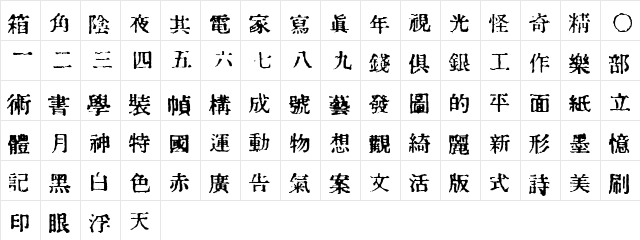
In_kanji Regular
In_kanji takes a measured approach to typography — its balanced proportions and neutral character make it a reliable workhorse for both digital and print work.